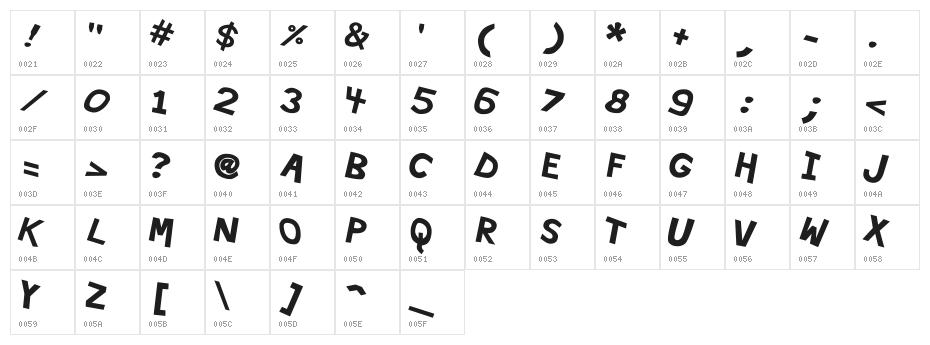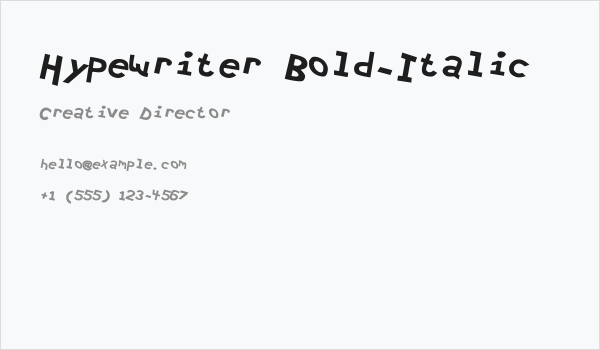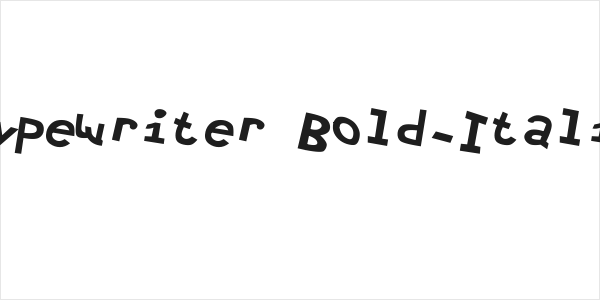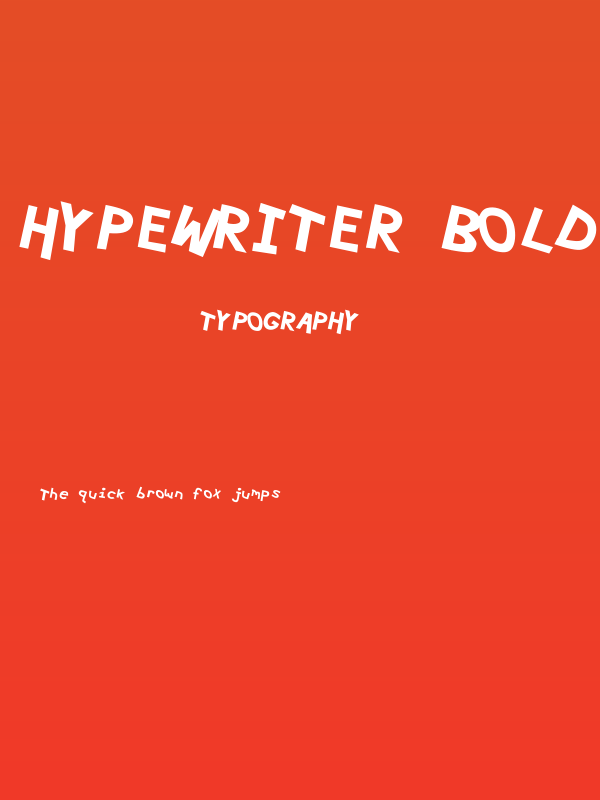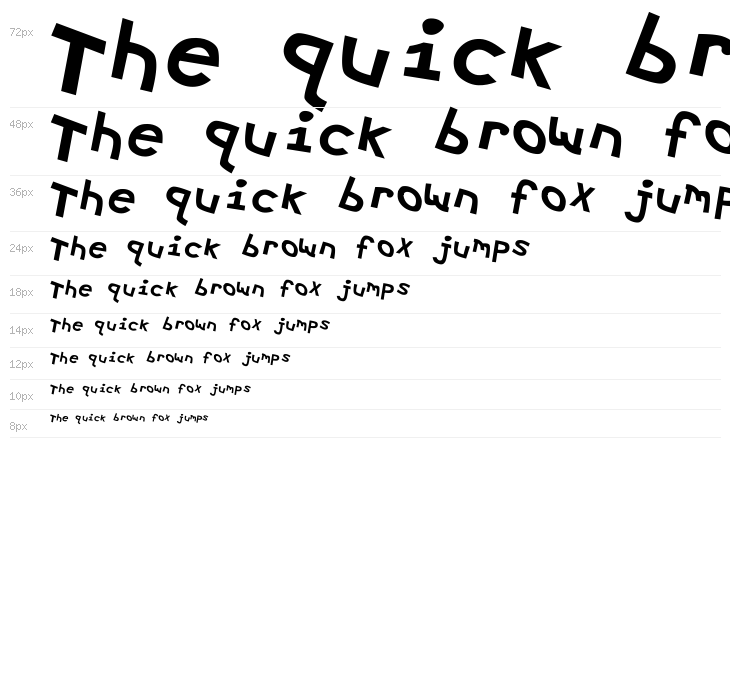
Hypewriter Bold-Italic Font
Hypewriter Bold-Italic Description
This font features a bold and italicized style with a playful, slightly irregular appearance reminiscent of vintage typewriter fonts. The characters have a distinct slant, adding a dynamic and energetic feel. The bold weight ensures strong visibility, making it suitable for attention-grabbing designs. The uppercase and lowercase letters maintain a consistent style, with rounded edges and varying stroke widths that add character. Numbers and special characters are included, following the same bold and italicized theme, ensuring a cohesive look across all text elements.